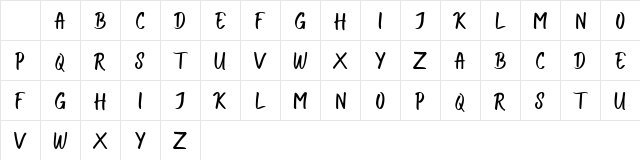
Complete Bright Sunshine Cap Demo Regular glyph index. Displaying only characters natively supported by Bright Sunshine Cap Demo Regular font.
Bright Sunshine Cap Demo is a composed and adaptable typeface that performs quietly and consistently across a wide range of design contexts.
Pro Tip: Use Bright Sunshine Cap Demo in both headline and body roles to test its range before committing to a single application.